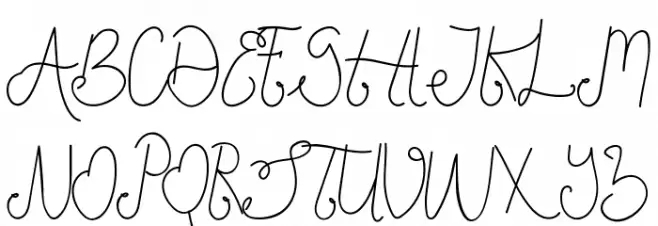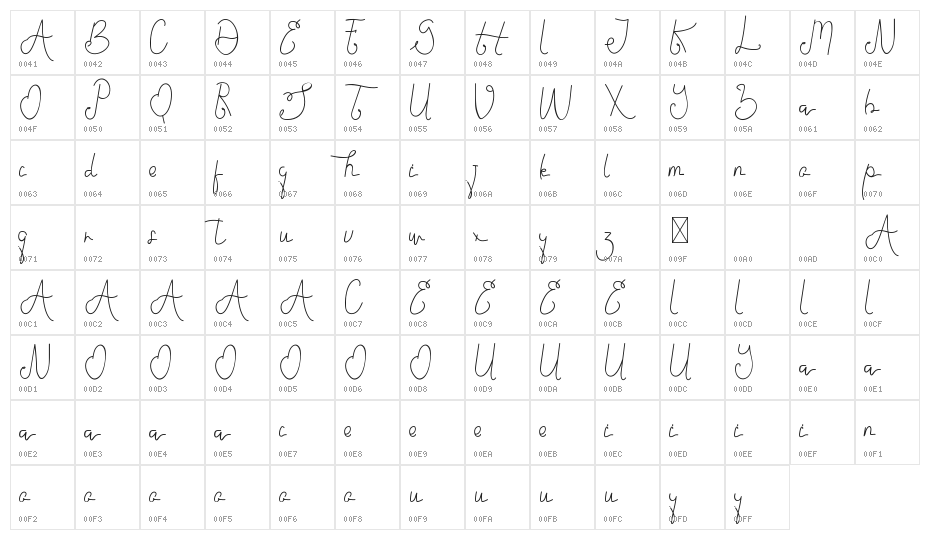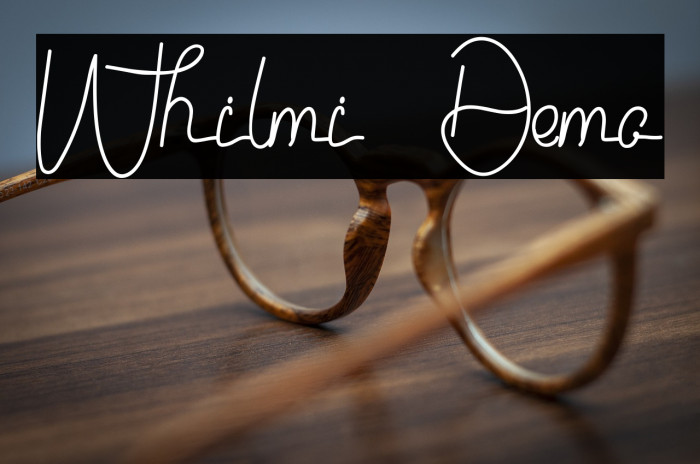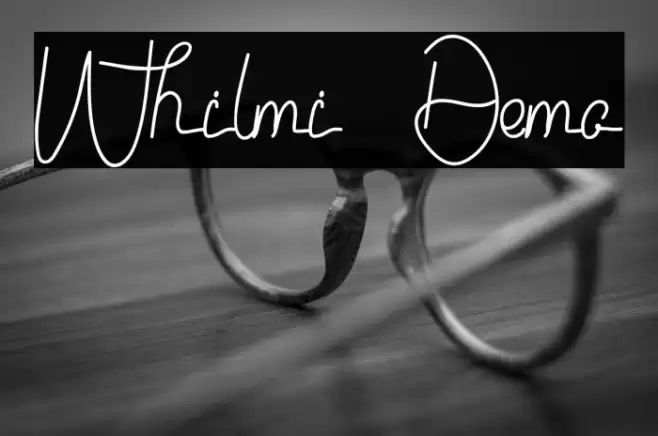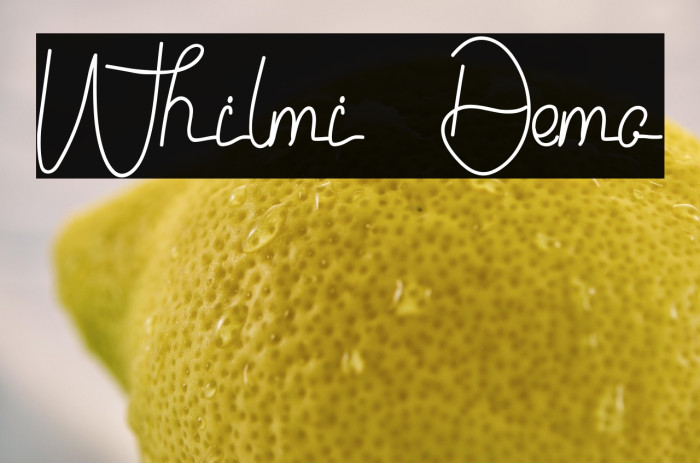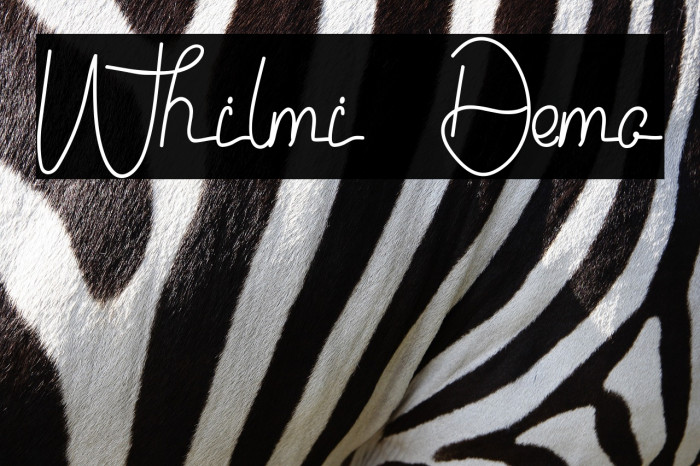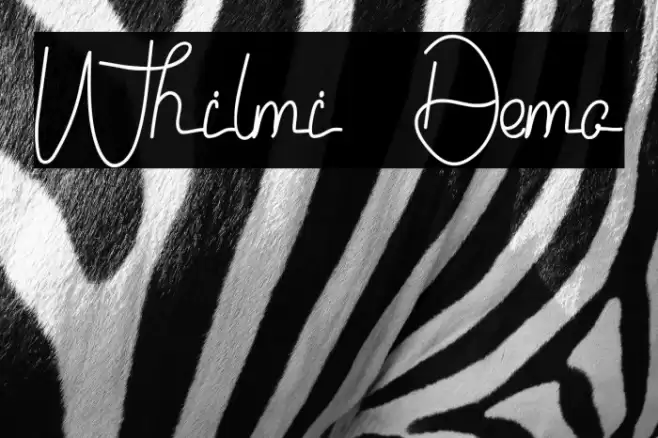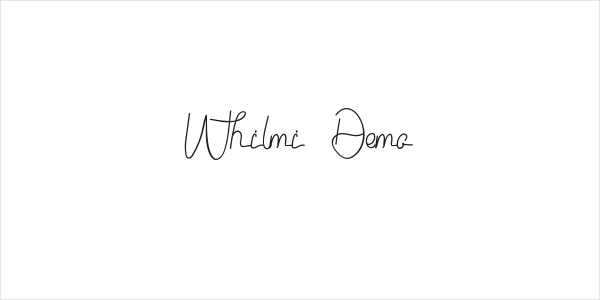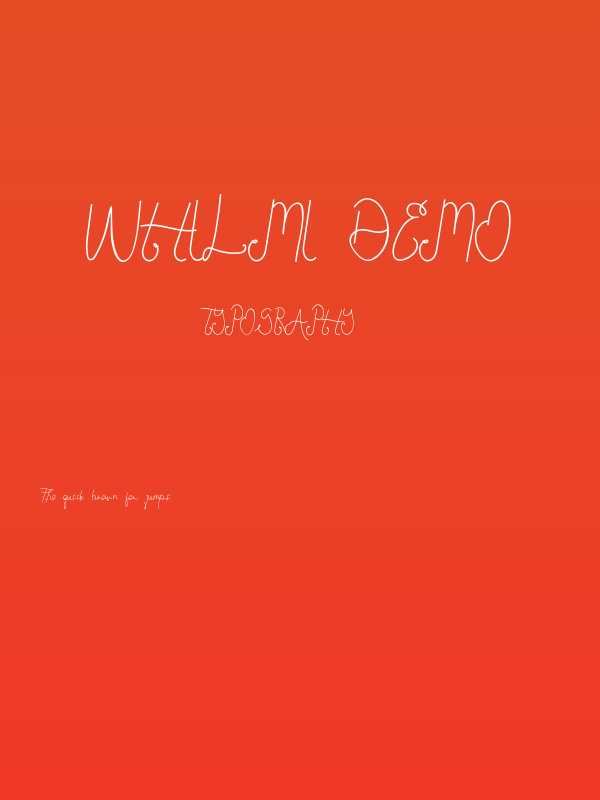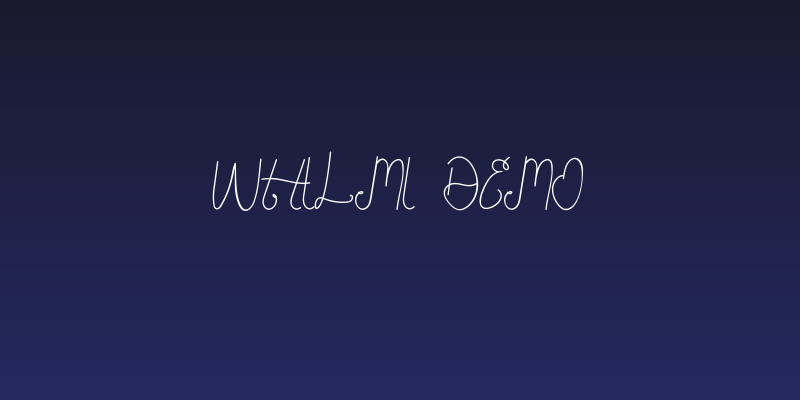
Whilmi Demo Font
Whilmi Demo Description
This font features an elegant and whimsical script style with a flowing, cursive design. Each character is crafted with intricate loops and swirls, giving it a playful yet sophisticated appearance. The uppercase letters are particularly ornate, with extended flourishes that add a touch of drama and flair. The lowercase letters maintain a consistent style, with smooth connections that enhance readability while preserving the decorative nature of the font. The numbers and special characters are designed to match the overall aesthetic, ensuring a cohesive look across all text elements. This font is ideal for projects that require a touch of elegance and creativity.
| Proposed Projects | Ideal for wedding invitations, greeting cards, branding, and decorative posters. |